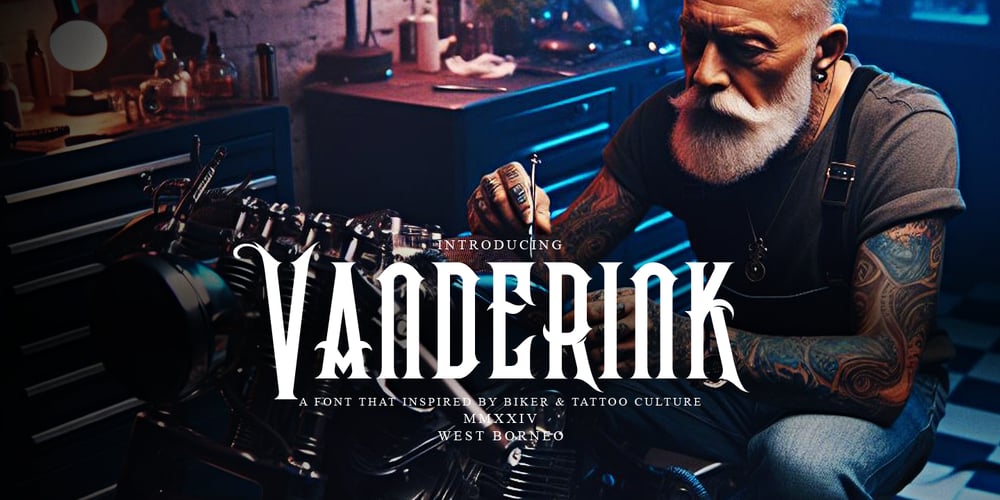
The Vanderink Font Family was designed by Deni Dessastra and published by the-sastra. The Vanderink contains 1 styles and family package options. This Vanderink font is inspired by Traditional, tribe, ink, Tattoo and biker culture.Vanderink font is perfect for badges, branding, labels, apparel, headlines, signage, logo, quote, apparel and other creative applications.For any help regarding this file, please feel free to contact me.Thank you